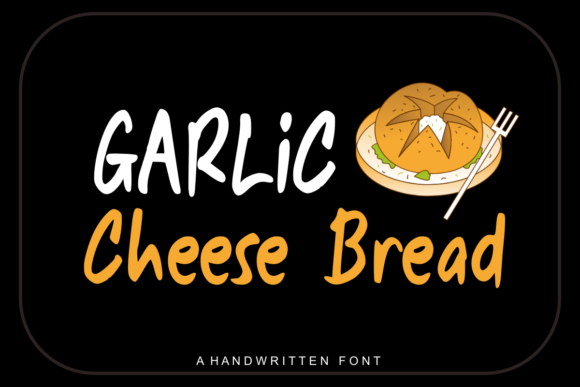
Introducing Garlic Cheese Bread Font - the perfect way to add warmth and uniqueness to your digital creations. With its inviting, handwritten style, this font will help you create standout quotes that resonate with your audience.
Whether you're designing social media graphics, website banners, or personal projects, Garlic Cheese Bread Font will bring a touch of character and charm. You'll love the way this font weaves itself into any design, giving it a personal and authentic feel.
Garlic Cheese Bread Font is not just another script font - it's a gateway to express your creativity and connect with your audience. Whether you're an artist, designer, writer, or simply someone who loves to dabble in beautiful lettering, this font is sure to become your go-to choice.